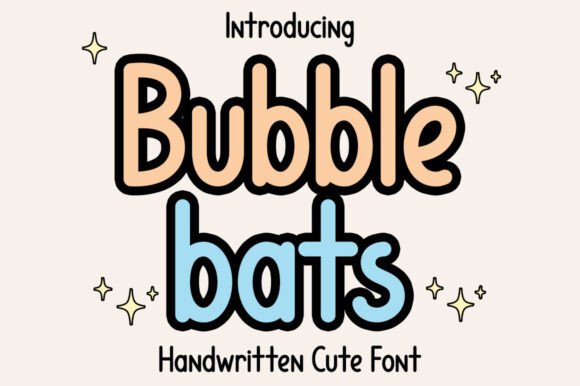
Bubble Bats Font: A Festive and Happy Typeface for the Holiday Season
The holiday season is upon us, and with it comes the need for festive and fun designs that capture the spirit of the season. One of the most important elements of any design is the font, and that’s where Bubble Bats Font comes in. This delightful typeface is specifically designed to bring a touch of cheer and nostalgia to your holiday-themed projects.
What Makes Bubble Bats Font So Special?
Bubble Bats Font is a decorative typeface that boasts a range of unique features that make it perfect for the holiday season. Some of its key features include:
- Festive and Happy Design: Bubble Bats Font is designed to capture the spirit of the holiday season, with a playful and cheerful design that’s sure to put a smile on anyone’s face.
- Decorative Elements: This font features a range of decorative elements, including bats, snowflakes, and other festive symbols that add a touch of charm to your designs.
- Unique Flair: Bubble Bats Font has a unique flair that’s all its own, making it perfect for designers who want to add a touch of personality to their work.
Perfect for Holiday-Themed Projects
Bubble Bats Font is perfect for a range of holiday-themed projects, including:
- Greeting Cards: Add a touch of festive cheer to your holiday greeting cards with this delightful font.
- Gift Labels: Make your gifts stand out with custom labels featuring Bubble Bats Font.
- Holiday-Themed Projects: Whether you’re working on a Christmas, Hanukkah, or Kwanzaa project, this font is sure to add a touch of festive fun.
Design Tips for Using Bubble Bats Font
Here are a few design tips to help you get the most out of Bubble Bats Font:
- Pair with Other Festive Fonts: Pair Bubble Bats Font with other festive fonts to create a unique and eye-catching design.
- Use Bright and Bold Colors: Bring out the festive spirit of Bubble Bats Font with bright and bold colors that match the holiday season.
- Add Decorative Elements: Take advantage of the font’s decorative elements, such as bats and snowflakes, to add a touch of whimsy to your design.
The Benefits of Using Bubble Bats Font
There are many benefits to using Bubble Bats Font in your holiday-themed projects, including:
- Unique and Eye-Catching Design: This font is sure to grab attention with its unique and eye-catching design.
- Festive and Fun: This font is guaranteed to bring a touch of festive fun to your holiday-themed projects.
- What is Bubble Bats Font? Bubble Bats Font is a festive and happy typeface designed specifically for the holiday season.